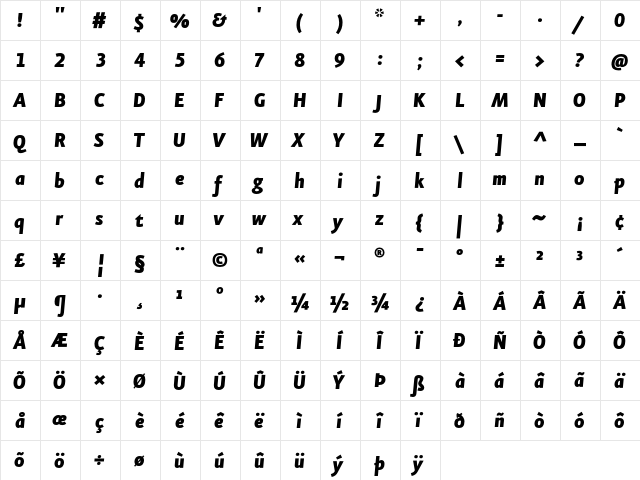
Eureka Sans Black Italic Font Preview
Eureka Sans Black Italic
Design Context for Eureka Sans Typeface
Eureka Sans takes a measured approach to typography — its balanced proportions and neutral character make it a reliable workhorse for both digital and print work. The slanted form adds forward momentum and visual energy.
Pro Tip: Use Eureka Sans for emphasis, pull quotes, and subheadings where its slanted energy can add rhythm to the layout.